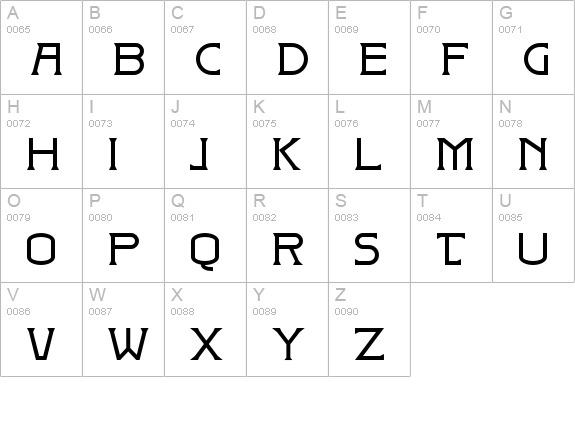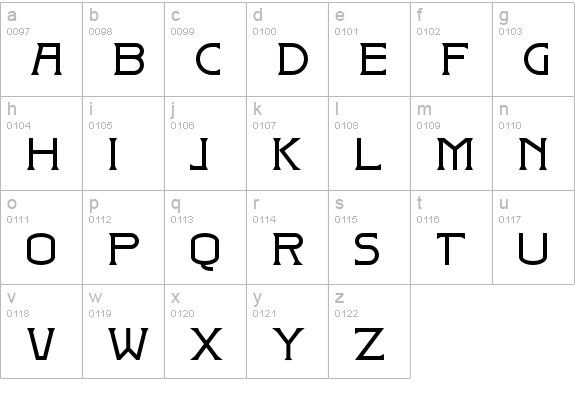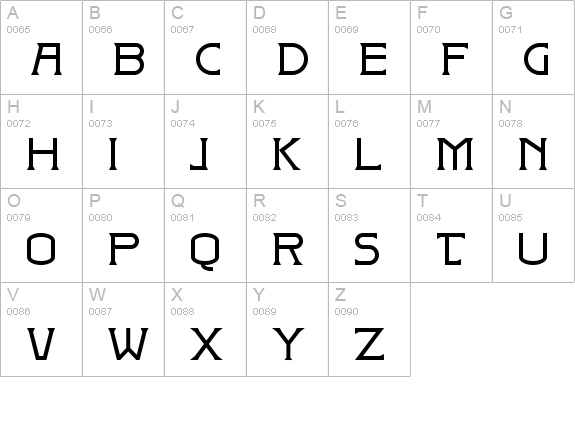
DK Badehaus is a stunningly elegant font that exudes sophistication and timeless beauty. With its delicate curves and graceful strokes, this font is perfect for adding a touch of class to any project. Whether you're designing a logo, creating a wedding invitation, or crafting a magazine layout, DK Badehaus will elevate your designs to a whole new level. One of the best things about DK Badehaus is that it is completely free. Yes, you read that right – you can download this amazing font for free at FontsMarket.com. This means that you don't have to worry about breaking the bank to add a touch of luxury to your creations. Simply head over to FontsMarket.com, find DK Badehaus, and start downloading it right away. Not only is DK Badehaus free, but it also offers a wide range of characters and glyphs, allowing you to create truly unique and personalized designs. From elegant and flowing uppercase letters to sophisticated and intricate lowercase characters, this font provides a versatile and comprehensive set of options for all your design needs. The smooth and fluid lines of DK Badehaus make it a joy to work with, ensuring that your typography will always be flawless and visually appealing. Its clean and refined aesthetic makes it suitable for a wide range of applications, from branding and packaging to website design and invitations. In addition to its visual appeal, DK Badehaus is also highly legible, making it ideal for both print and digital projects. Whether you're designing a poster or creating a website, this font will ensure that your message is communicated clearly and effectively. So why wait? Enhance your designs with the timeless elegance of DK Badehaus. Download this beautiful font for free at FontsMarket.com and experience the luxury and versatility it has to offer. Don't miss out on this incredible opportunity to elevate your designs and make a lasting impression. Get DK Badehaus today and let your creativity soar.